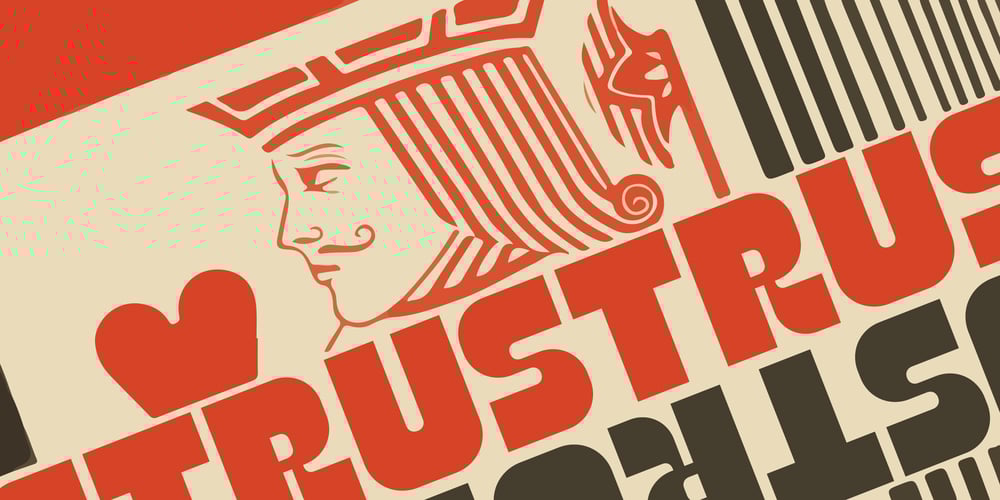
PAG Trust Font Family was designed by Ryoichi Tsunekawa and published by Prop-a-ganda. PAG Trust contains 1 styles and family package options. Prop-a-ganda offers retro-flavored fonts inspired by lettering on retro propaganda posters, retro advertising posters, retro packages all the world over. This is perfect font for your retrospective project. Almost all the letters of PAG Trust are drawn by bold line, but some bars are very thin line and counters are extremely small. With this font, regular typed text transformed into unique typography. We can’t decide the impression of PAG Trust, depending on how to use it, it can be cute package, retro book cover or propaganda poster of Cuba.